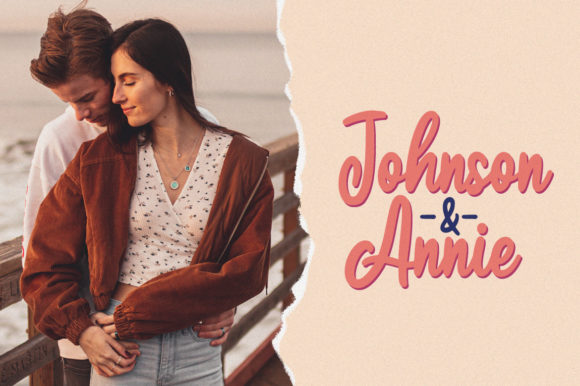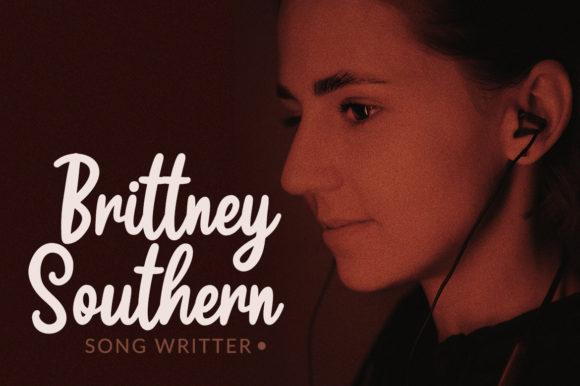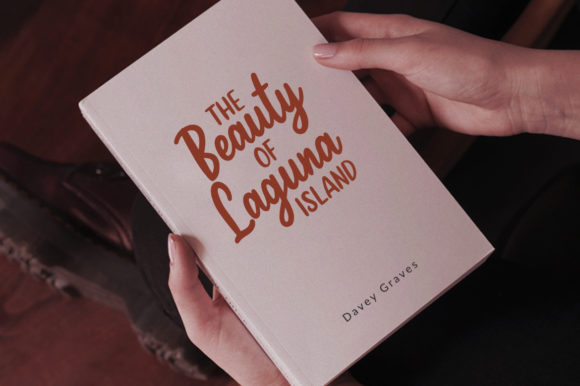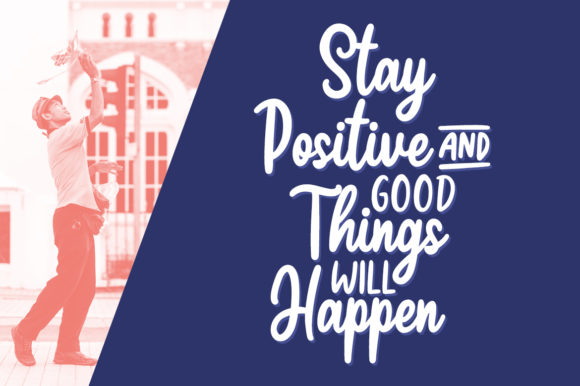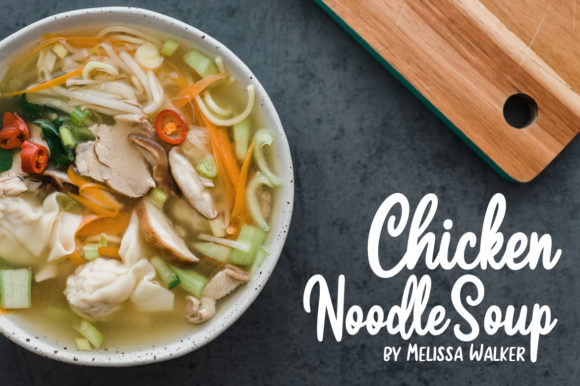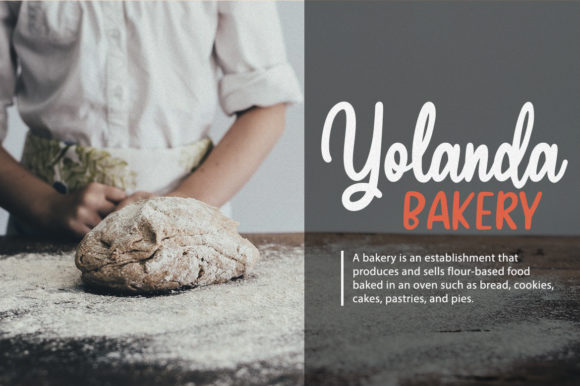
Introducing Chidera Font: The Elegant and Modern Handwritten Font
Are you tired of using the same old fonts in your designs? Look no further than Chidera Font, a beautiful and modern handwritten font that’s sure to become a true favorite. With its casual charm and elegant feel, Chidera is the perfect addition to any design project. In this article, we’ll take a closer look at Chidera Font and explore its features, benefits, and uses.
What is Chidera Font?
Chidera Font is a carefully handcrafted handwritten font that’s designed to be both elegant and modern. Its unique and flowing script makes it perfect for a variety of design applications, from branding and advertising to packaging and digital media. With its casual charm, Chidera Font has a wonderfully down-to-earth feel that’s both readable and versatile.
Key Features of Chidera Font
- Elegant and Modern Design: Chidera Font features a beautiful and modern handwritten design that’s perfect for creating stunning visual content.
- Casual Charm: With its flowing script and casual feel, Chidera Font has a wonderfully down-to-earth charm that’s perfect for creating engaging and approachable designs.
- Highly Versatile: Chidera Font is incredibly versatile and can be used in a variety of design applications, from busy backgrounds to standalone headlines.
- Readable: Despite its elegant and modern design, Chidera Font is highly readable, making it perfect for use in body text and other long-form content.
Benefits of Using Chidera Font
So why should you choose Chidera Font for your next design project? Here are just a few benefits of using this amazing font:
- Adds a Touch of Elegance: Chidera Font adds a touch of elegance and sophistication to any design, making it perfect for high-end brands and luxury products.
- Creates a Personal Connection: With its casual charm and handwritten feel, Chidera Font creates a personal connection with readers, making it perfect for use in blogs, social media, and other digital content.
- Standout from the Crowd: Chidera Font is a unique and distinctive font that’s sure to help your designs stand out from the crowd.
Uses of Chidera Font
So what can you use Chidera Font for? The possibilities are endless! Here are just a few ideas to get you started:
- Branding and Advertising: Use Chidera Font to create stunning brand identities and advertising campaigns that showcase your brand’s personality and style.
- Packaging Design: Add a touch of elegance and sophistication to your packaging designs with Chidera Font.
- Digital Media: Use Chidera Font to create engaging and interactive digital content, from social media graphics to blog posts and articles.
- Print Design: Chidera Font is perfect for use in print design, from business cards and brochures to posters and flyers.
Tips for Using Chidera Font
Here are a few tips for getting the most out of Chidera Font:
- Use it as a Headline Font: Chidera Font is perfect for use as a headline font, adding a touch of elegance and sophistication to any design.
- Pair it with Other Fonts: Experiment with pairing Chidera Font with other fonts to create a unique and visually appealing design.
- Use it in Combination with Images: Chidera Font looks stunning when used in combination with images, adding a touch of elegance and sophistication to any design.
In conclusion, Chidera Font is a beautiful and modern handwritten font that’s perfect for designers and crafters looking to add a touch of elegance and sophistication to their designs. With its casual charm, highly versatile design, and readability, Chidera Font is sure to become a true favorite. Whether you’re working on a branding project, packaging design, or digital media, Chidera Font is the perfect choice.